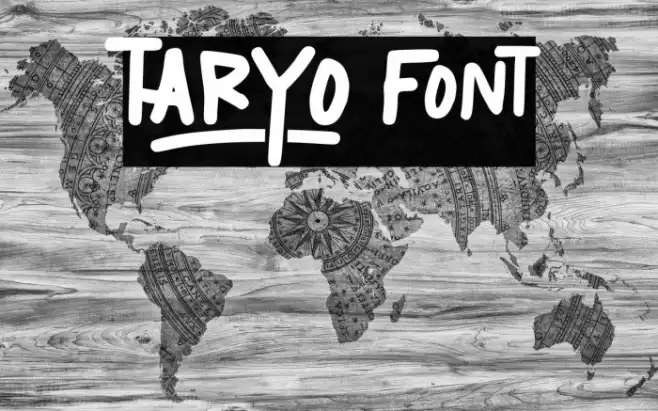
TARYO Font
TARYO Description
This font features a bold, handwritten style with a playful and informal appearance. The letters are slightly irregular, giving it a casual and dynamic feel. The uppercase and lowercase characters maintain a consistent thickness, contributing to a cohesive look. The strokes are rounded and smooth, enhancing the approachable nature of the font. The spacing between characters is relatively tight, which adds to the energetic vibe. This font is suitable for projects that require a personal touch or a sense of spontaneity.
A bold, handwritten font with a playful and informal style from Uncategorized fonts.
- Proposed Projects: Ideal for greeting cards, children's books, casual branding, and social media graphics.
- Character Spacing: Tight
- Overall Style: Casual